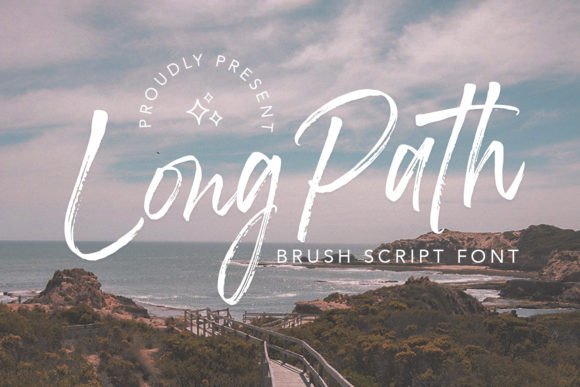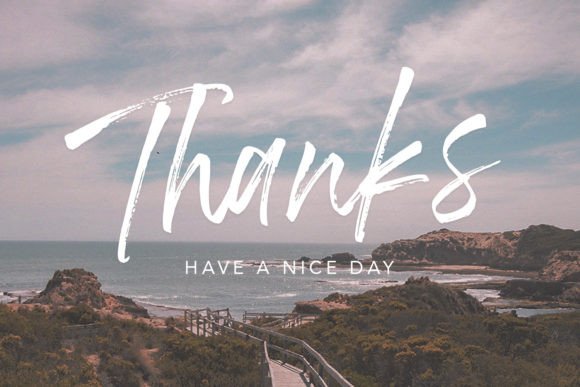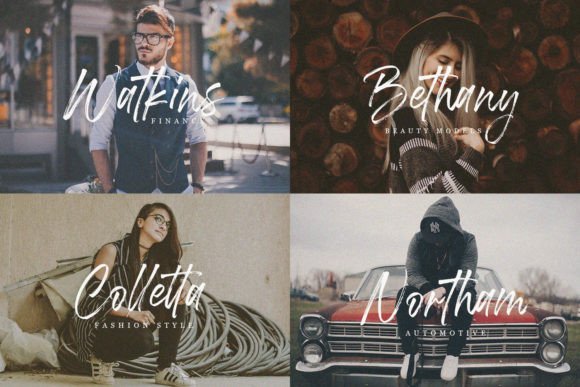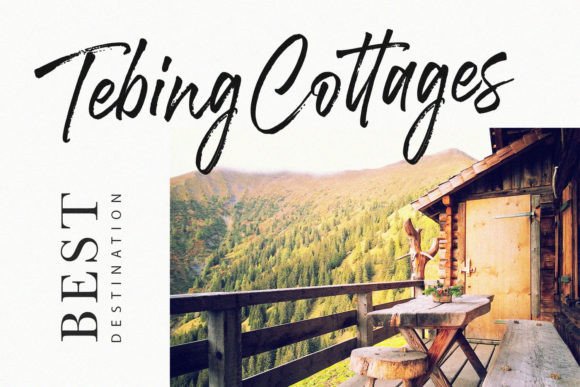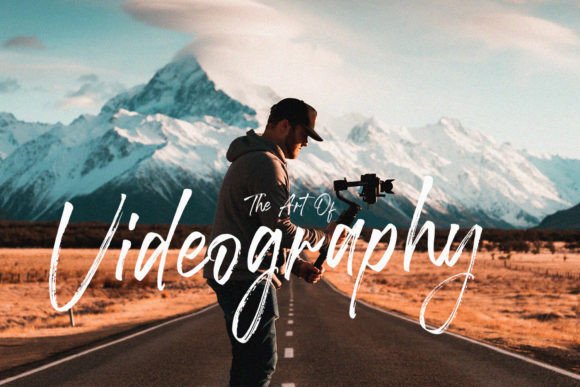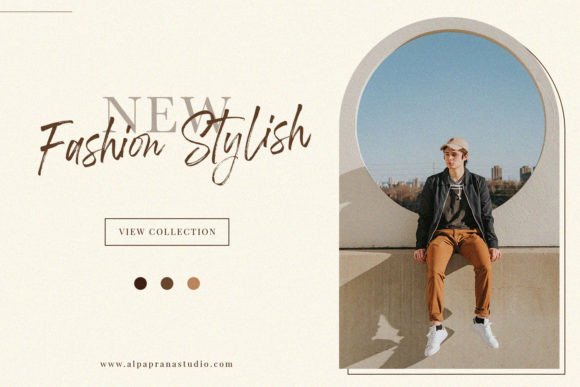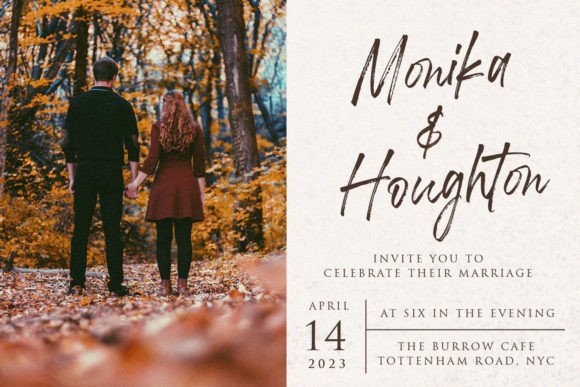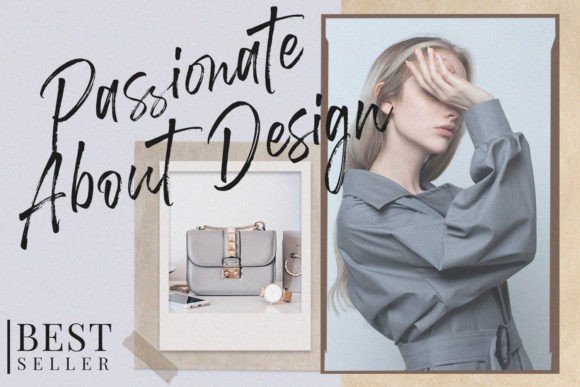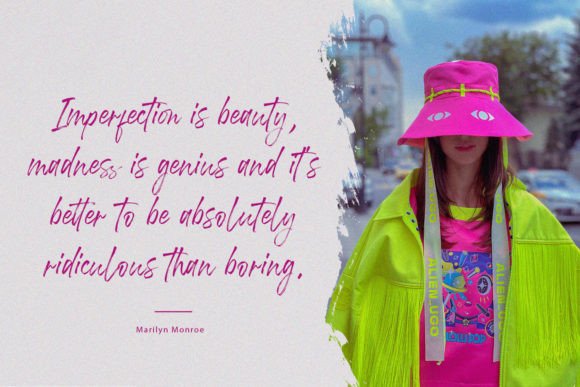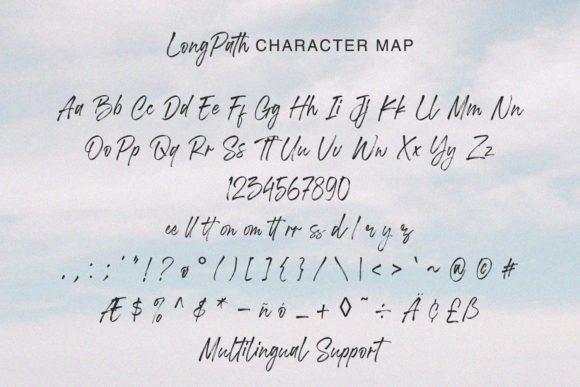
Long Path Font
About Long Path Font
Long Path stands as a captivating brush script font, resonating with an authentic and natural essence. Its stunning aesthetic lends itself perfectly to an array of design applications, making it a versatile and impactful choice for creative projects.
This font becomes an indispensable asset in the realm of branding, offering a distinctive and memorable touch. Whether it’s crafting a brand identity, developing a logo, or engaging in lettering endeavors, Long Path weaves a narrative of authenticity and creativity. Its brush strokes echo a handcrafted quality, instilling a sense of character that resonates with audiences.
In the world of design, Logotype creation is an art, and Long Path emerges as a brush script font that breathes life into logotypes. Its fluidity and natural feel effortlessly translate into visually appealing and cohesive logotypes that leave a lasting impression.
The realm of fashion and apparel finds a perfect companion in Long Path. Whether adorning clothing, posters, or shopping bags, this font adds a touch of style and individuality. It transforms ordinary designs into statements, making it an ideal choice for T-shirt designs and other fashion-related projects.
Magazines and packaging benefit from the dynamic and eye-catching nature of Long Path. It brings vibrancy to posters, magazine layouts, and packaging designs, ensuring that the visual communication is both compelling and memorable. Its ability to adapt to diverse design needs makes it a valuable asset for various print and digital applications.
Book covers, as the first visual interaction with a potential reader, require a font that not only captures attention but also communicates the essence of the content. Long Path achieves this seamlessly, offering a balance between readability and artistic expression.
Photography and special events gain an added layer of charm with the inclusion of Long Path. Its ability to complement visuals and evoke a particular mood makes it an excellent choice for event materials, photography watermarks, and other creative applications.
In essence, Long Path transcends being just a font; it becomes a design companion, enhancing the creative journey across a multitude of projects. Its authenticity, natural feel, and adaptability position it as a go-to choice for designers seeking a brush script font that not only meets but exceeds the demands of diverse design endeavors.